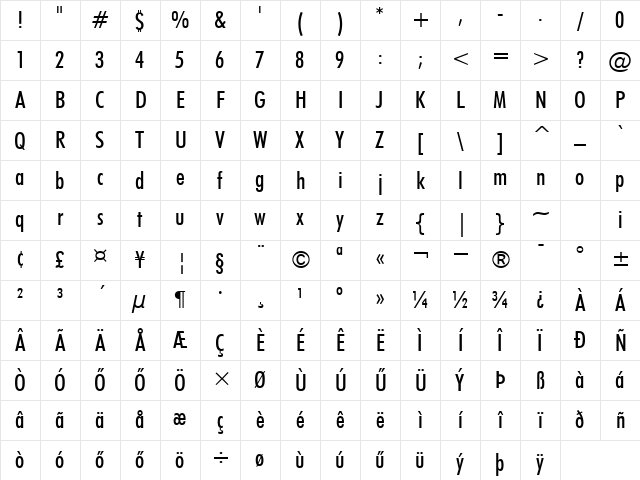
H_Futura Medium Condensed BT Regular
Design Context for H_Futura Medium Condensed BT
H_Futura Medium Condensed BT has a distinctly futuristic character, with geometric precision and clean angles that feel at home in technology, gaming, and sci-fi contexts. Its narrow stance lets it pack a punch even in space-constrained designs.
Pro Tip: Try H_Futura Medium Condensed BT with generous letter-spacing in UI labels and navigation - the geometric forms benefit from room to breathe.